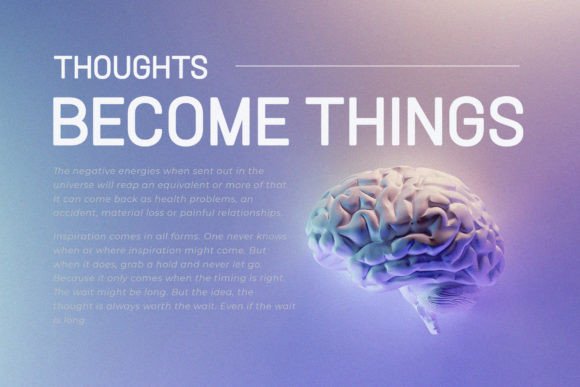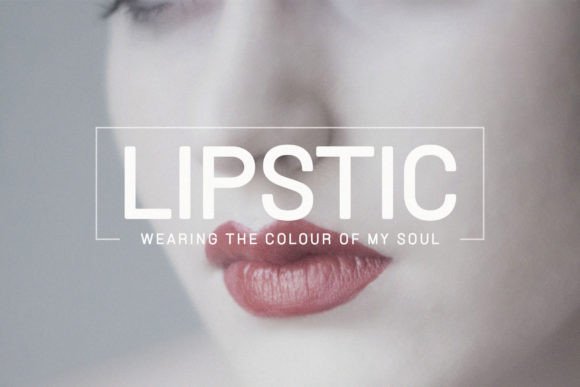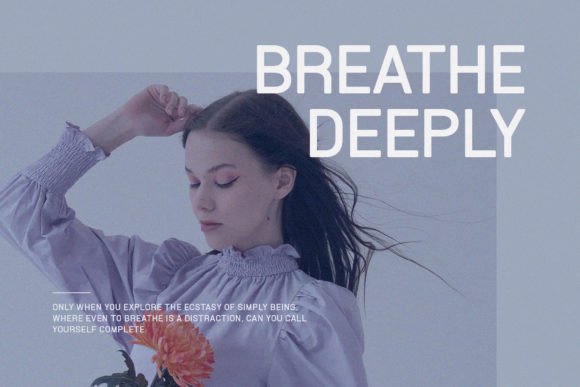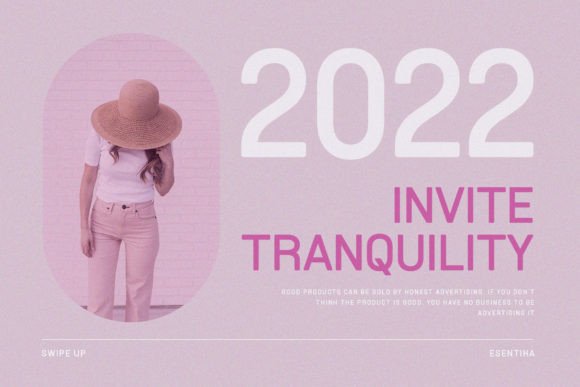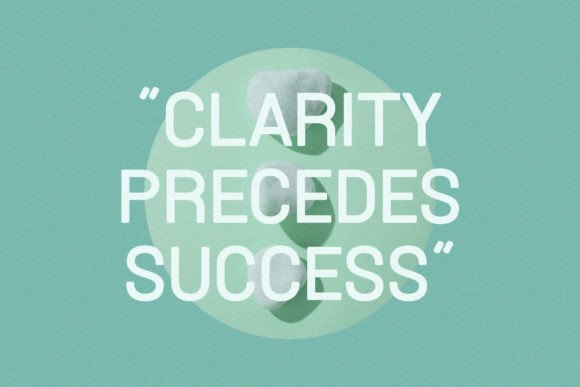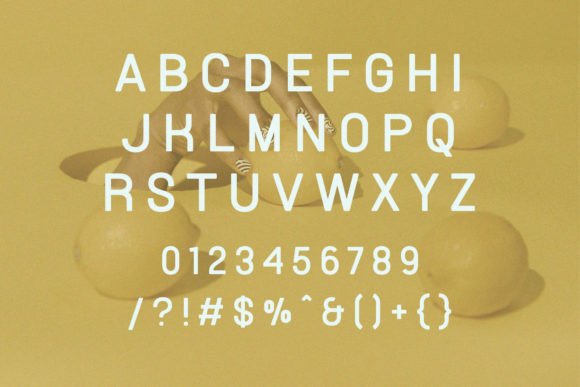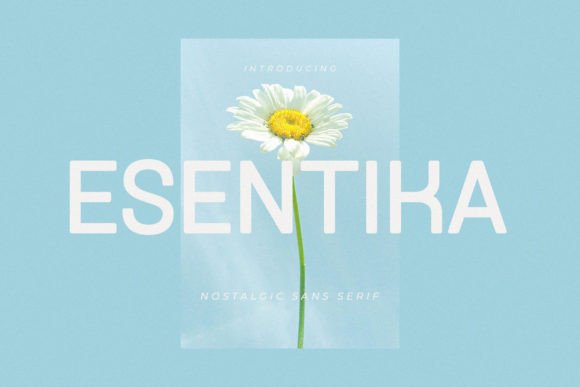
Introducing Esentika Font: Elevate Your Designs with Modern Elegance
In the world of typography, a font can make or break a design. For designers and crafters looking to add a touch of sophistication to their projects, Esentika Font is an excellent choice. This modern and classy typeface is perfect for creating stunning headings, logos, branding, magazines, product packaging, and invitations.
The Characteristics of Esentika Font
Esentika Font boasts clean lines and smooth curves, giving any project an extra touch of class. Its sleek design makes it an ideal choice for designers who want to create a lasting impression. Whether you’re working on a luxury brand or a creative project, Esentika Font is sure to impress.
What Makes Esentika Font Stand Out?
- Modern and Classy: Esentika Font is a perfect blend of modernity and elegance, making it suitable for a wide range of design projects.
- Clean Lines and Smooth Curves: The font’s clean lines and smooth curves create a sophisticated look that’s hard to resist.
- Versatile: Esentika Font can be used for various design projects, including headings, logos, branding, magazines, product packaging, and invitations.
- Easy to Read: The font’s clear and legible design ensures that your message is conveyed effectively, making it perfect for both digital and print designs.
How to Use Esentika Font in Your Designs
Esentika Font is incredibly versatile and can be used in a variety of design projects. Here are some ideas to get you started:
- Headings and Titles: Use Esentika Font to create stunning headings and titles that grab attention.
- Logos and Branding: Create a lasting impression with Esentika Font by using it for your logo and branding projects.
- Magazines and Editorials: Add a touch of elegance to your magazine and editorial designs with Esentika Font.
- Product Packaging: Make your product stand out on store shelves with Esentika Font.
- Invitations and Events: Create beautiful invitations and event materials with Esentika Font.
Tips for Pairing Esentika Font with Other Fonts
Pairing Esentika Font with other fonts can create a unique and visually appealing design. Here are some tips to keep in mind:
- Contrast: Pair Esentika Font with a font that has a different style or texture to create contrast.
- Harmony: Choose a font that complements Esentika Font’s modern and classy feel.
- Hierarchy: Use Esentika Font for headings and a secondary font for body text to create a clear hierarchy.
Esentika Font is a modern and classy typeface that’s perfect for designers and crafters looking to add a touch of sophistication to their projects. With its clean lines, smooth curves, and versatile design, Esentika Font is sure to elevate your designs to the next level. Whether you’re working on a luxury brand or a creative project, Esentika Font is an excellent choice.